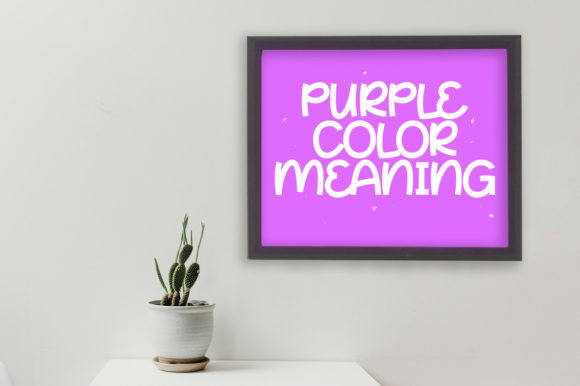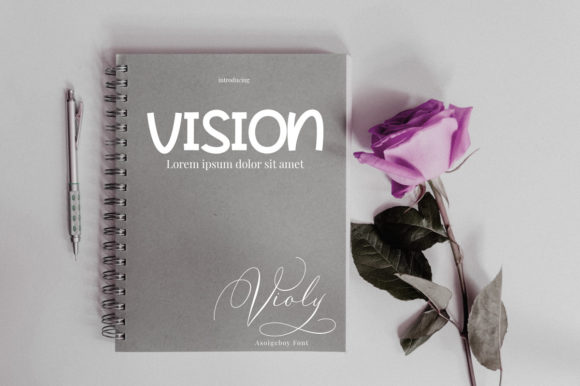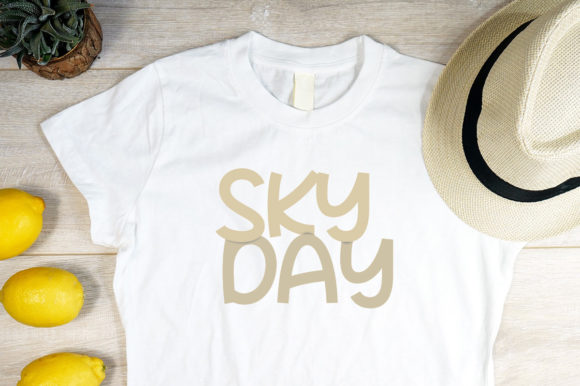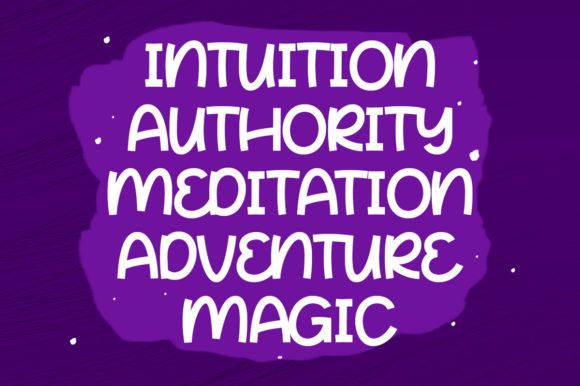
Get Ready to Add Some Crispness to Your Designs
There’s nothing quite like that moment when a design comes together – the perfect balance of color, texture, and typography. You’ve spent hours agonizing over every detail, and finally, it’s just right. But what if you could take it to the next level? Introducing the Gorden Crispy Font, a quirky and friendly display font that’s sure to add a touch of whimsy to your designs.
This charming font is designed to be versatile, with a natural and unique style that makes it incredibly fitting to a wide range of designs. Whether you’re working on a project for a client or simply want to add some personality to your personal brand, the Gorden Crispy Font is the perfect choice. Its value lies in its ability to add a touch of elegance and sophistication to even the most straightforward designs.
Gorden Crispy Font Key Features
- Font Family: Gorden Crispy is a sans-serif font family designed for digital use.
- Unique Characteristics: Features a unique blend of modern and retro elements, giving it a distinctive and eye-catching appearance.
- Font Style: Includes multiple font styles, including regular, bold, italic, and bold italic, providing flexibility for various design needs.
Gorden Crispy Font Review
When I first laid eyes on the Gorden Crispy Font, I was immediately drawn to its playful and modern aesthetic. ✨ The font’s rounded edges and smooth curves give it a friendly, approachable feel that’s perfect for casual or creative projects.
One of the standout features of this font is its versatility. ✨ It works well for both print and digital applications, and its adaptability makes it a great choice for designers looking to add a touch of whimsy to their designs. Additionally, the font’s crispiness is achieved through a thoughtful selection of weights, from light to bold, ensuring that the font remains legible even at smaller sizes.
However, there are some limitations to consider. ⚠️ The font may not be the best choice for more formal or professional projects, as its playful nature can come across as immature or unrefined. Additionally, the font’s crispiness can sometimes feel overdone, resulting in a slightly cartoonish or overly stylized look.
- Works well for casual or creative projects
- Versatile for both print and digital applications
- Thoughtfully designed weights for optimal legibility
Overall, I think the Gorden Crispy Font is a solid choice for designers looking to add a touch of personality to their work. While it may not be the best fit for every project, it’s certainly a great option for those seeking a playful and modern aesthetic.
For best results, use the Gorden Crispy Font for headings and titles, as it is a bold and eye-catching font.
Use the Gorden Crispy Font for creating bold and attention-grabbing text effects.
Use the Gorden Crispy Font for creating bold and eye-catching headings and titles.
The Gorden Crispy Font is ideal for:
- Creating bold and eye-catching headings and titles.
- Designing attention-grabbing text effects.
- Adding a unique and modern touch to your designs.
Remember to use the Gorden Crispy Font in moderation, as it can be quite bold and overpowering if used too extensively.
Alternatives to Gorden Crispy Font
Montserrat is a sans-serif font that works well for headings and titles. It has a modern feel and is highly legible. Use Montserrat when you need a clean and minimalist look. Compared to Gorden Crispy Font, Montserrat is more geometric and has a stronger grid structure.
2. Arial Black
Arial Black is a sans-serif font that is similar to Gorden Crispy Font but has a more subtle feel. It is a good choice for headings and titles when you want a clean and simple look without being too bold. Compared to Gorden Crispy Font, Arial Black is more conservative and has a softer edge.
Open Sans is a sans-serif font that is highly legible and works well for body text as well as headings. It has a clean and modern feel and is a good choice when you want a font that is easy to read. Compared to Gorden Crispy Font, Open Sans is more relaxed and has a softer feel.